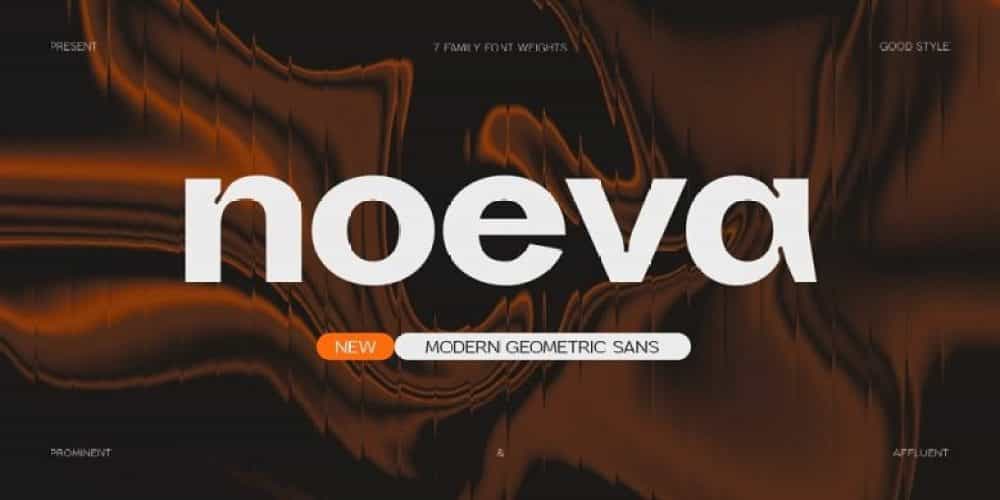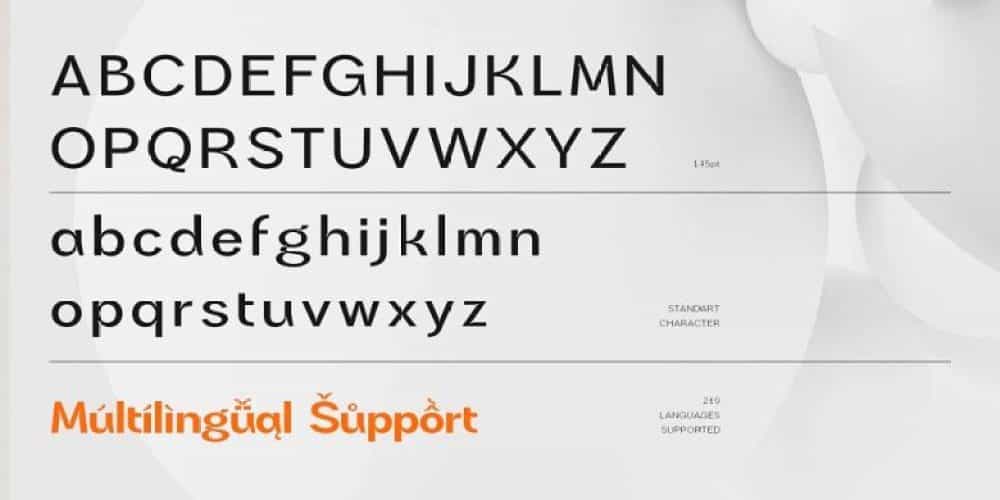
PNA Noeva is a new modern geometric sans font family that is a new take on the contemporary classic look. Designed with accuracy, Noeva comes with 7 dynamic weights that will enable you to switch between styles as you work. The design is based on a grid which, combined with the unique inktrap detailing, makes every character highly legible.